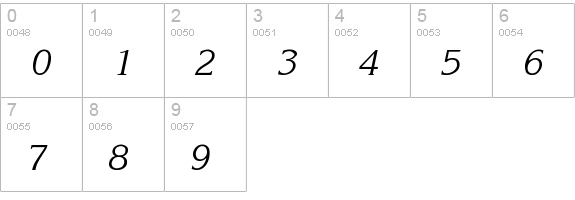
Gloria-SemiBold-Italic Font Details
Gloria-SemiBold-Italic is a sub-bold, structured, italic variant in the Gloria typeface family \xE2\x80\x94 well suited to sub-headlines and emphasised passages.
Gloria SemiBold Italic is a bold and elegant font that exudes sophistication and style. With its semi-bold weight and slanted italic design, this font is perfect for making a statement in any project. The sleek lines and distinctive curves of Gloria SemiBold Italic make it a versatile choice for a wide range of design applications. Adding a touch of modern flair to traditional typography, Gloria SemiBold Italic stands out with its unique blend of strength and grace. Whether you're crafting a logo, designing a poster, or creating a website, this font will add a touch of sophistication to your project. Best of all, Gloria SemiBold Italic is available for free download at FontsMarket.com. This means you can easily access this stunning font and incorporate it into your designs without any cost. Don't miss out on the opportunity to elevate your projects with the timeless beauty of Gloria SemiBold Italic.